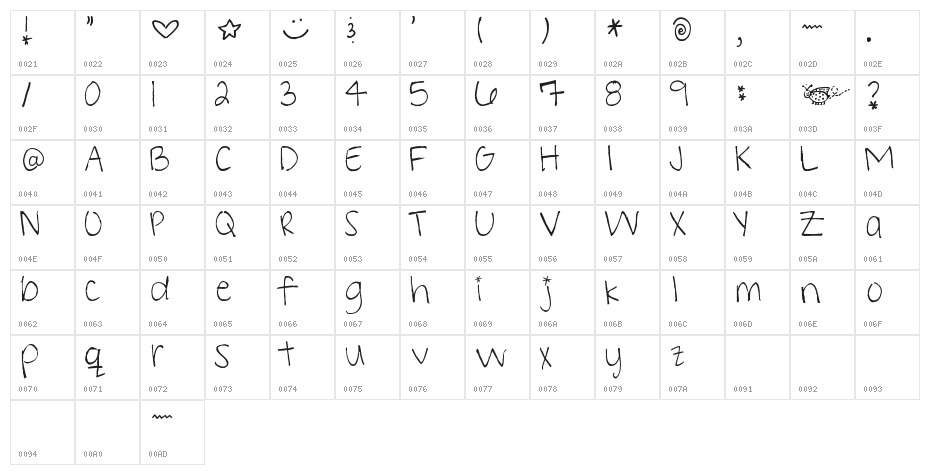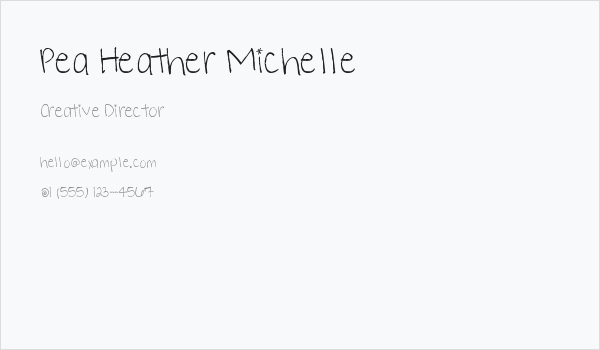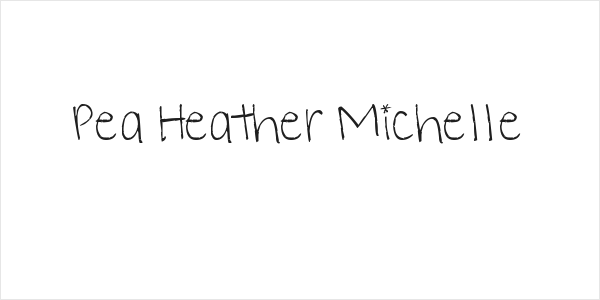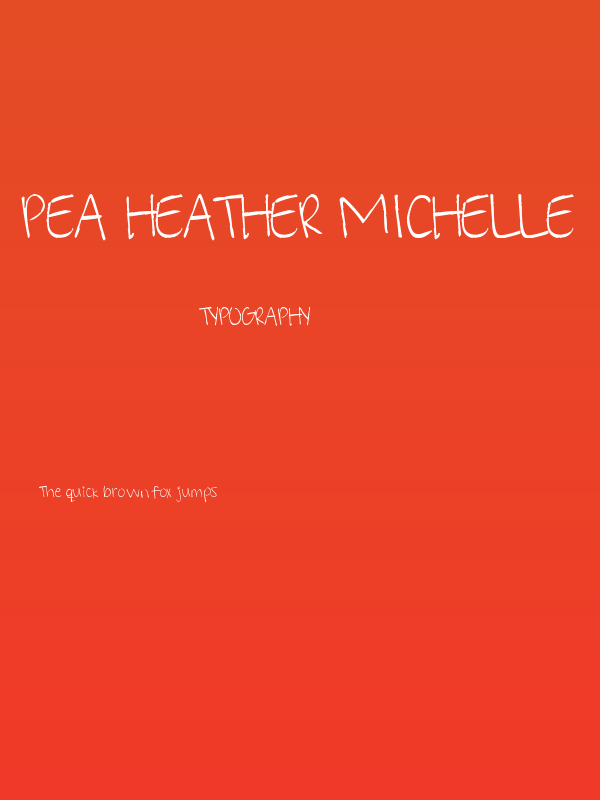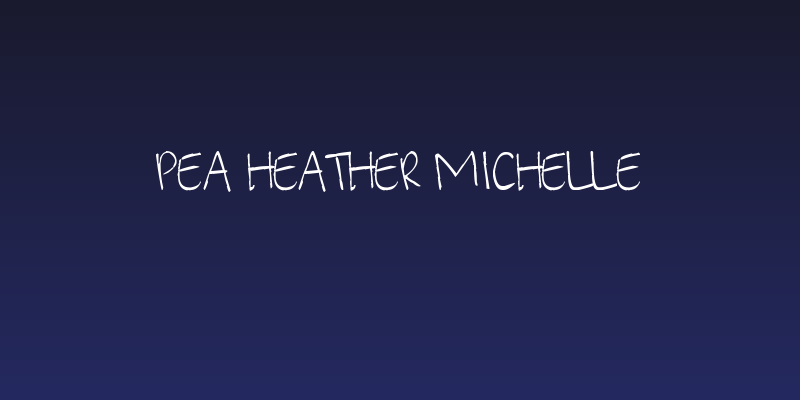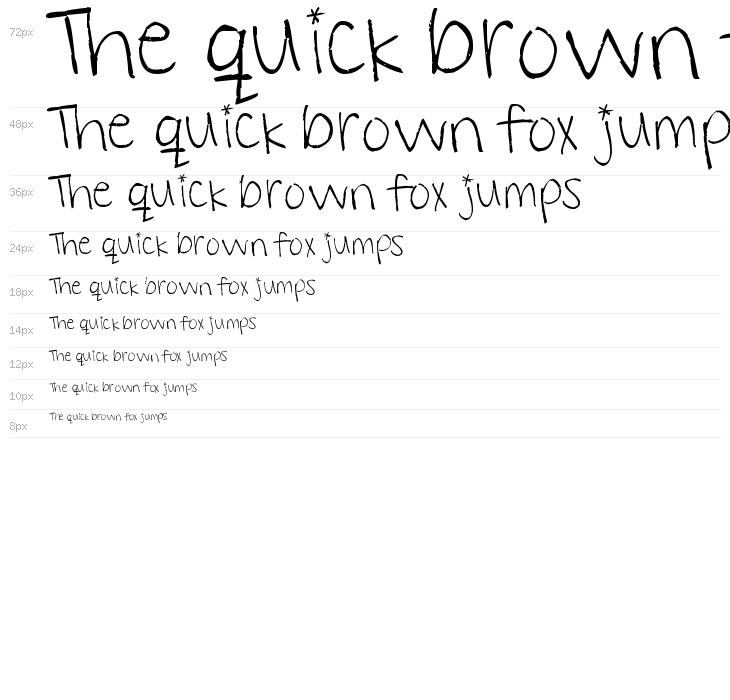
Pea Heather Michelle Font
Pea Heather Michelle Description
This playful and whimsical handwritten font features a casual, informal style with a slightly uneven baseline, giving it a charmingly imperfect appearance. The letters are thin and elongated, with a consistent stroke width that maintains readability while adding a touch of personality. The uppercase letters are tall and narrow, while the lowercase letters have a more relaxed and rounded form. The numbers and special characters follow the same playful aesthetic, making this font versatile for various creative projects. Its hand-drawn quality makes it ideal for conveying a personal and friendly tone.